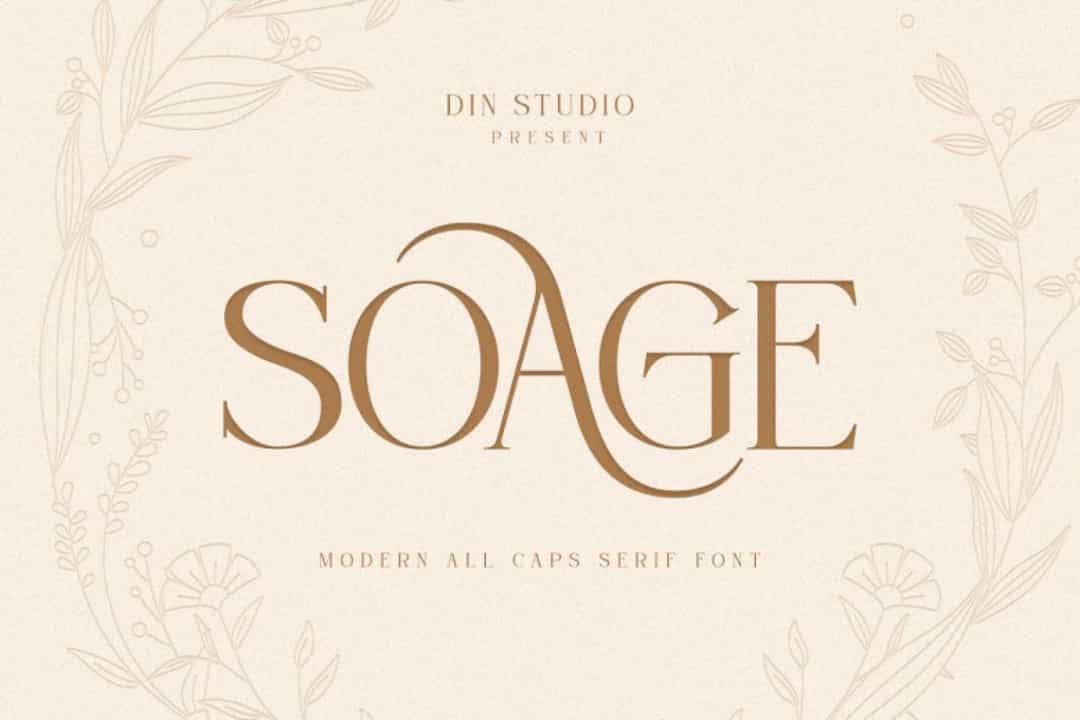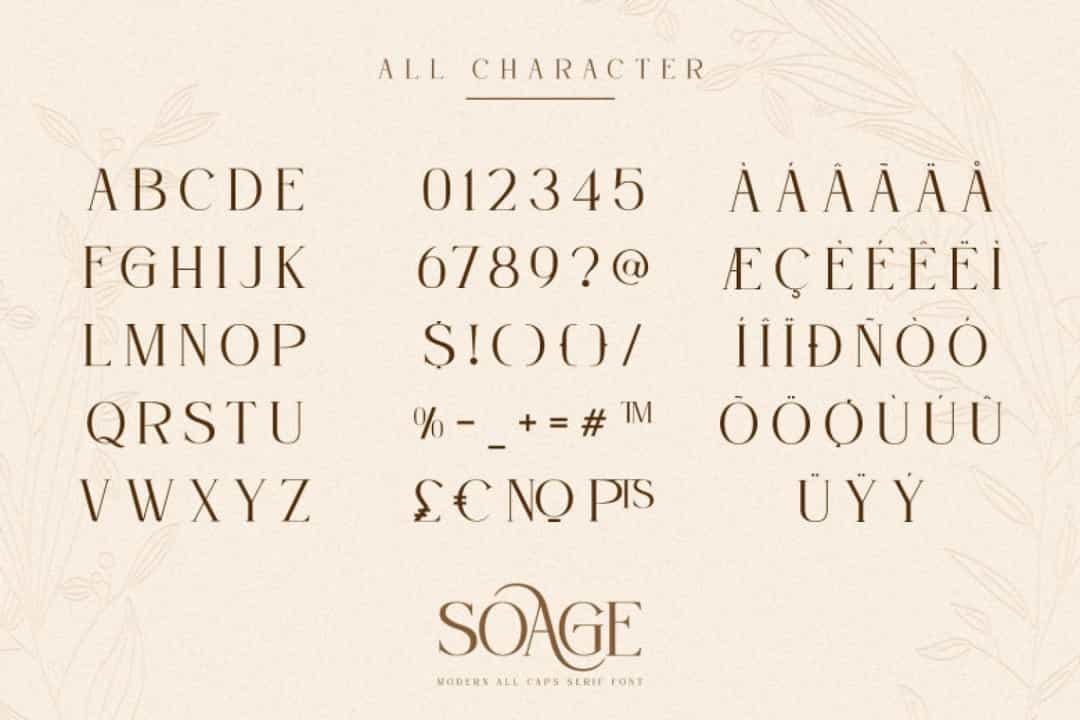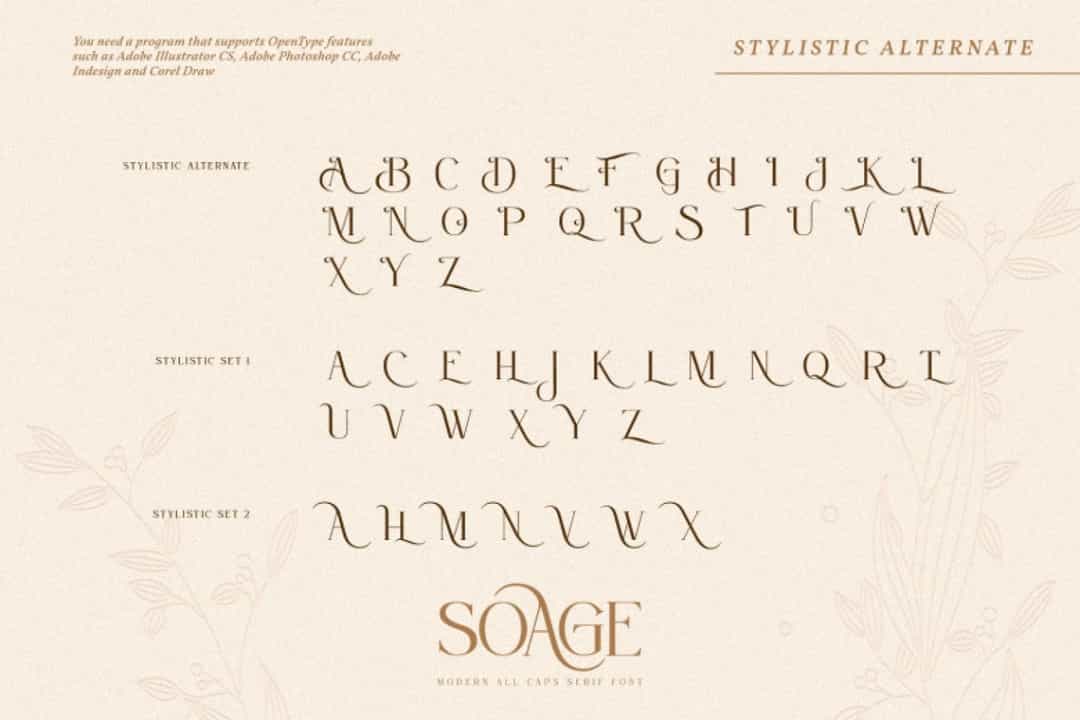
Soage is a modern serif typeface designed for headlines that require an extraordinary font, as well as formal occasions such as printing, branding and weddings. Each letter boasts distinct and stunning designs to complete its captivating character.